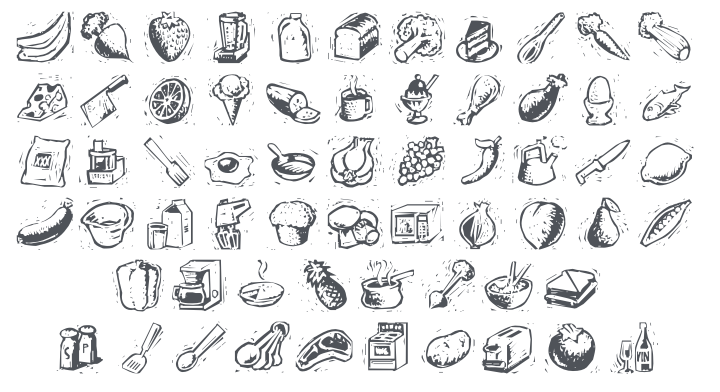
Counterscraps Font
About Counterscraps
A charming collection of kitchen-related illustrations sketched on an early PDA, giving each icon a charmingly crude, hand-drawn quality. It includes utensils, food items, and cookware symbols. Perfect for recipe cards, food blog graphics, restaurant menus, culinary branding, and any kitchen-themed decorative design work.